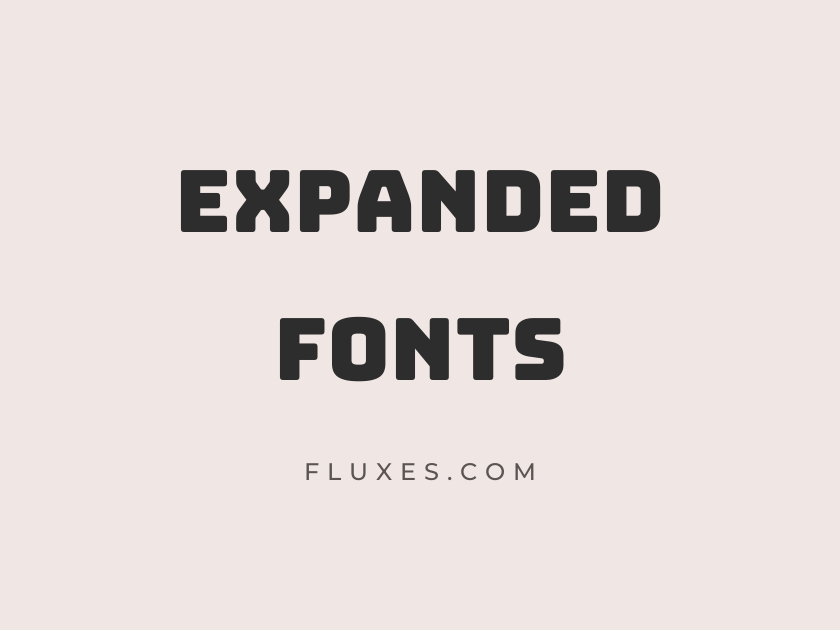
67 Best Expanded Fonts
Wide letterforms do something narrow type simply cannot: they command a page. Expanded fonts stretch each character horizontally, giving headlines, logos, posters, and packaging a confident, billboard-ready presence that reads as bold from across a room or a screen. For anyone hunting free expanded fonts as an alternative to pricey commercial wide cuts, Google Fonts turns out to be a surprisingly deep well, spanning chunky slab serifs, geometric tech faces, art deco display type, and playful rounded bubble letters built for branding, signage, and big, loud headlines.
Bold city signage for every neon marquee
Bungee was built by Fonts of the City founder David Jonathan Ross with actual street signage in mind, and it shows: every letter is squared off, evenly weighted, and stubbornly wide, like something bolted to a bus shelter. It reads best at large sizes on posters, transit graphics, or app icons rather than body copy, where its density turns muddy.
The Bungee superfamily is really a toolkit. Once you like the base cut, the Inline, Outline, Shade, Hairline, and Spice variants below let you layer effects without leaving the family.
Layered letters for retro arcade marquees
Bungee Inline hollows out a thin channel inside each letter, giving the same street-sign width a bit of dimensional shine. It pairs naturally with the solid Bungee weight for two-tone logotypes and game titles.
Bungee Outline
Stencil-ready outlines for bold festival posters
Bungee Outline
Strip away the fill and you get Bungee Outline, a hollow version that works beautifully overlaid on photography or color blocks where a solid letterform would feel too heavy.
Deep drop shadows for retro travel posters
Bungee Shade bakes a hard-edged drop shadow directly into the glyphs, evoking mid-century travel posters and diner signage. Use it sparingly, at large display sizes, since the shadow detail collapses at anything smaller than a headline.
Bungee Hairline
Delicate line work for modern city branding
Bungee Hairline
The lightest member of the family swaps the blocky fill for a thin, precise stroke, which makes it surprisingly elegant for minimalist logotypes despite sharing its wide skeleton with its heavier siblings.
Bungee Spice
Color gradients for playful summer event branding
Bungee Spice
Bungee Spice adds a built-in color gradient, making it a fun, low-effort way to bring warmth and energy to festival branding or app splash screens without touching a gradient tool.
Cartoon-thick lettering for playful brand logos
Titan One is inflated, rounded, and impossibly wide, the kind of lettering you would expect on a children’s cereal box or a mobile game icon. Its heavy weight and generous counters keep it legible even when squeezed onto small buttons.
Chunky headlines for confident retail signage
Bowlby One packs a huge amount of ink into a short cap height, producing letters so wide and solid they nearly read as shapes first, words second. It suits sale signage, sports branding, and anywhere a headline needs to shout.
Bowlby One SC
Small caps swagger for vintage badge design
Bowlby One SC
This small-caps sibling trades lowercase entirely for uniform capital letterforms, giving it a badge-like, stamped quality that pairs well with circular logo layouts and vintage packaging marks.
Comic-book shouting for playful game titles
Luckiest Guy leans hard into cartoon energy, with bouncy, uneven baselines and a hand-inked feel that makes it a favorite for mobile game logos and comic lettering. It is expressive rather than neutral, so it works best as a one-off headline, not a system-wide brand face.
Bubbly lettering for kid-friendly snack packaging
Chewy looks carved from soft rubber, with rounded, puffy strokes that suit children’s products, snack packaging, and playful app interfaces. Its width and roundness make individual letters easy to spot even at a distance.
Retro brush swagger for casual event flyers
Boogaloo mixes a brush-script attitude with a surprisingly wide, blocky structure, landing somewhere between a poster face and a casual logotype. It has a loose, hand-built charm that suits skate brands and music flyers.
Changa One
Rounded punch for bold sale banners
Changa One
Changa One is thick, rounded, and unapologetically wide, built to be read in a hurry on a banner or storefront window. Its slightly inflated curves give it a friendly edge despite the heavy weight.
Chango
Extra-bold shout for street-style branding
Chango
Chango pushes even further into ultra-bold territory, with letterforms so dense they nearly touch. It is a specialist tool for very short headlines or logotypes rather than anything with more than a few words.
Friendly rounded type for wellness brand logos
Fredoka has become one of the most popular rounded display faces on Google Fonts, and its bold weights lean satisfyingly wide, with soft geometric curves that feel warm rather than corporate. It shows up constantly in wellness branding, kids apps, and startup logos, largely because it manages to look expanded and friendly at once.
Test at the sizes you will actually use. Many of these faces are built for posters and hero banners, and some lose clarity fast once shrunk down to a mobile menu label.
Between blocky street-sign faces, art deco revivals, rounded bubble letters, and futuristic geometric sans serifs, there is a wide font here for nearly any brand, poster, or headline that needs to take up space with confidence. All of them are free to download and use on Google Fonts, which makes experimenting with a bold, expanded headline low-risk and, often, exactly what a design was missing.